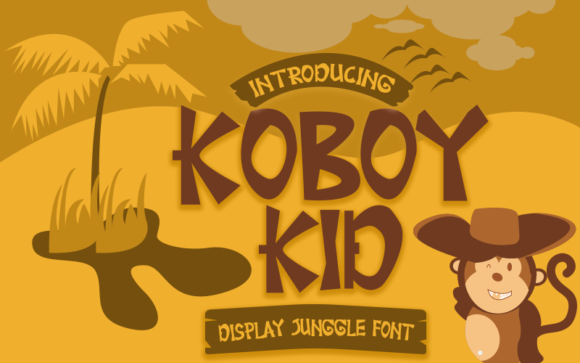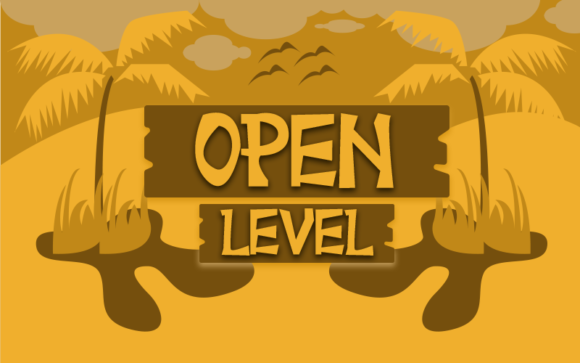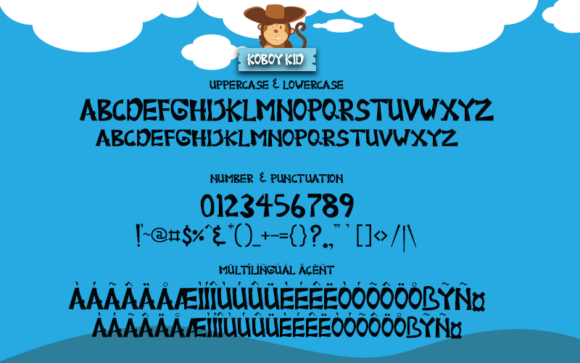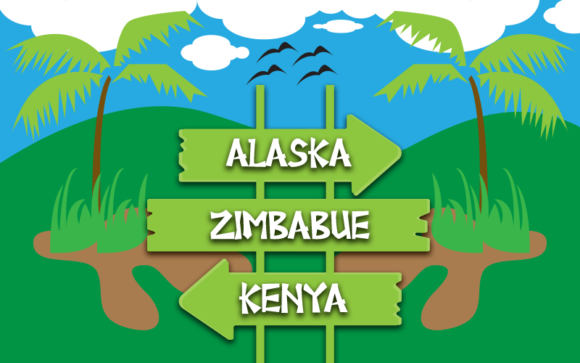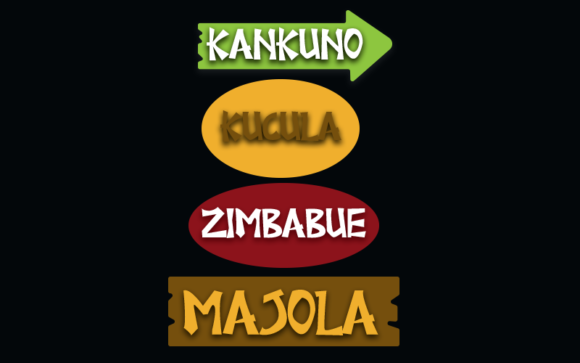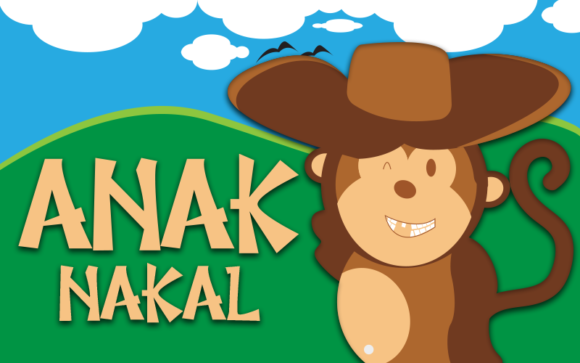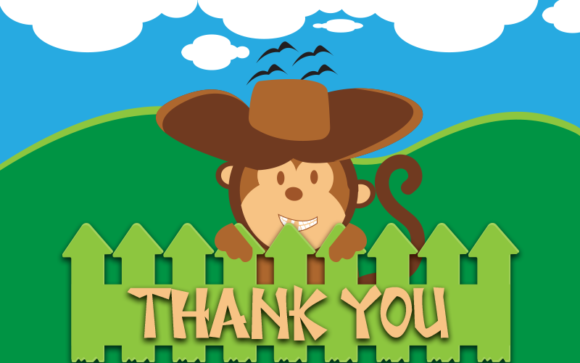
Koboy Kid Font
About Koboy Kid Font
Koboy Kid is a cute and casual handwritten font with an incredibly friendly feel. Whether you’re looking for fonts for Instagram or calligraphy scripts for DIY projects, this font will turn any creative idea into a true piece of art!